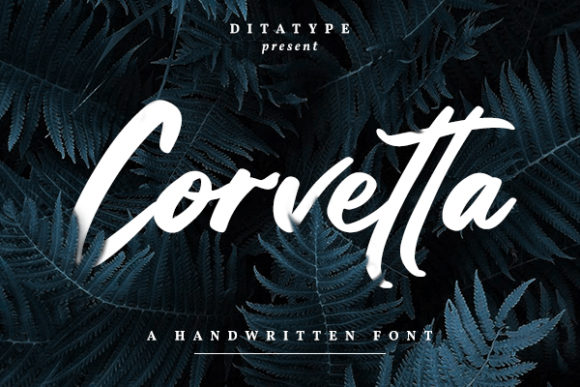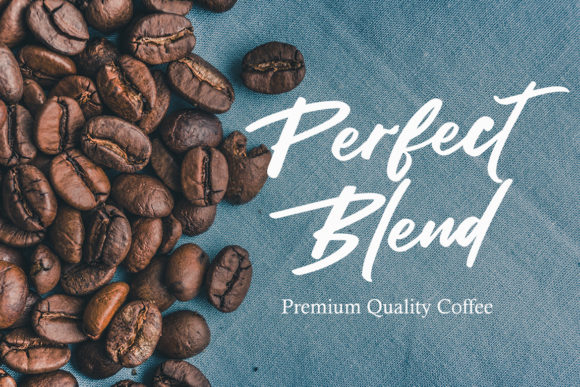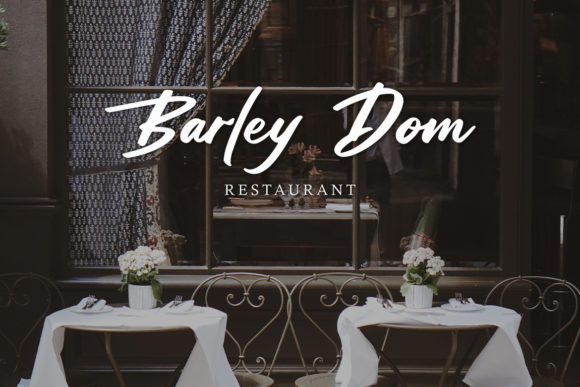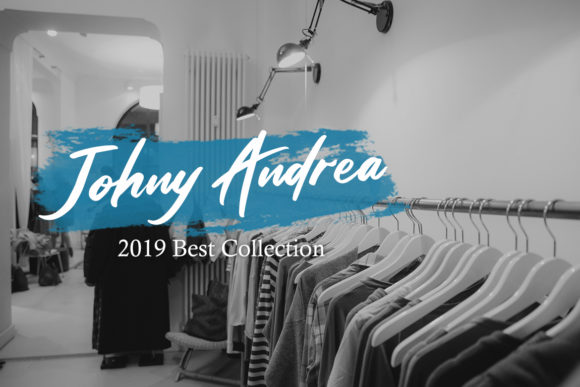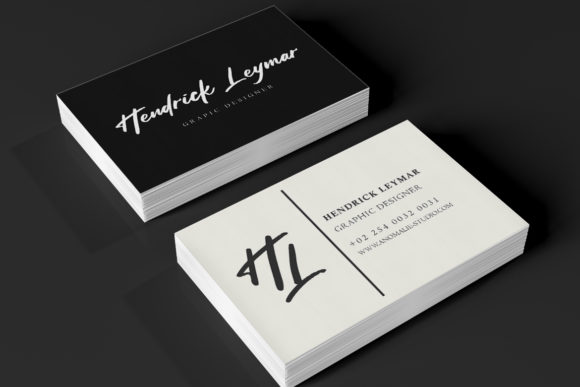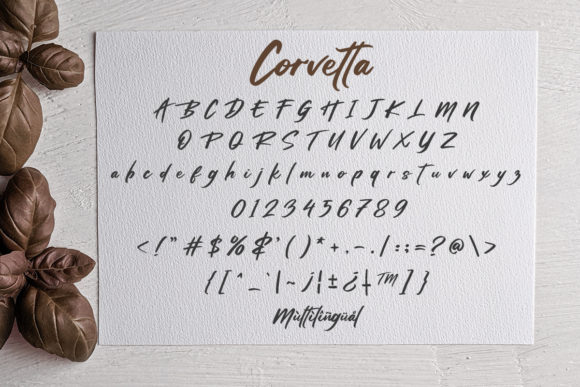
Corvetta Font
About Corvetta Font
Corvetta is a bold handwritten font, carefully handcrafted to become a true favorite. Its casual charm makes it appear wonderfully down-to-earth, readable and, ultimately, incredibly versatile. Corvetta will look outstanding in any context, whether it’s being used on busy backgrounds or as a standalone headline!